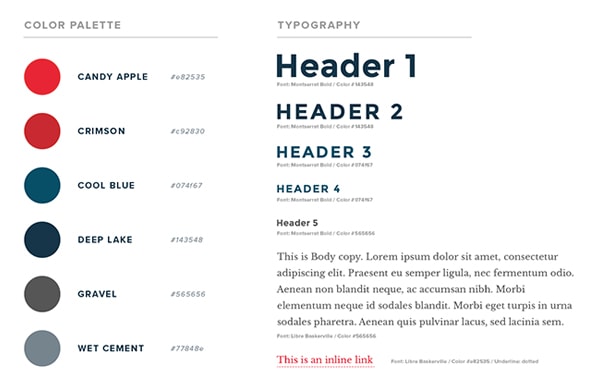
However, we will make an exception on this rule when a headline text design is more effective by using two contrasting texts next to each other. It is a good tool for designers to create a website/app with bright colors. Fonts, on the other hand, are a part of the typeface, it's a specific style.
When It Comes To Fonts, We Have One Style For Headlines And Another One For Body Text.
In that case, one of our body text fonts may be used in conjunction with one of our bold fonts (see example below). Aka “brand books”, “standards manuals”, “corporate identity guides”. Fonts, on the other hand, are a part of the typeface, it's a specific style.
Use Font, Not Typeface, For The Name Of A Typeface Design Such As Times New Roman Or Segoe Ui.
It is a good tool for designers to create a website/app with bright colors. Fonts & typography we have selected fonts that best represent brand strength, while maintaining simplicity, legibility and a strong modern style. Style your fallback fonts to appear as close as possible to your actual fonts to minimize the effects of the fout.
Typography In Brand Guidelines Specifies The Fonts That Designers Can Use When Designing For The Brand.
See here for a list of usable fallback fonts. It includes guidelines for typefaces, ui elements, colors, grids, and more. In this article, we look at the style guides of these brands as examples of typography in brand guidelines:
Fonts Categorized As Decorative, Display, Or Novelty, Literally Means The Font Is Meant To Grab Your Attention.
When typesetting longer sections of text—exceeding five paragraphs—a serif typeface is recommended. I was surprised how easy is to create a collage with this package. Our brand fonts are fjalla one and proxima nova.
Use This Tool To Easily Compare Your Fallback Font To Your Custom Font.